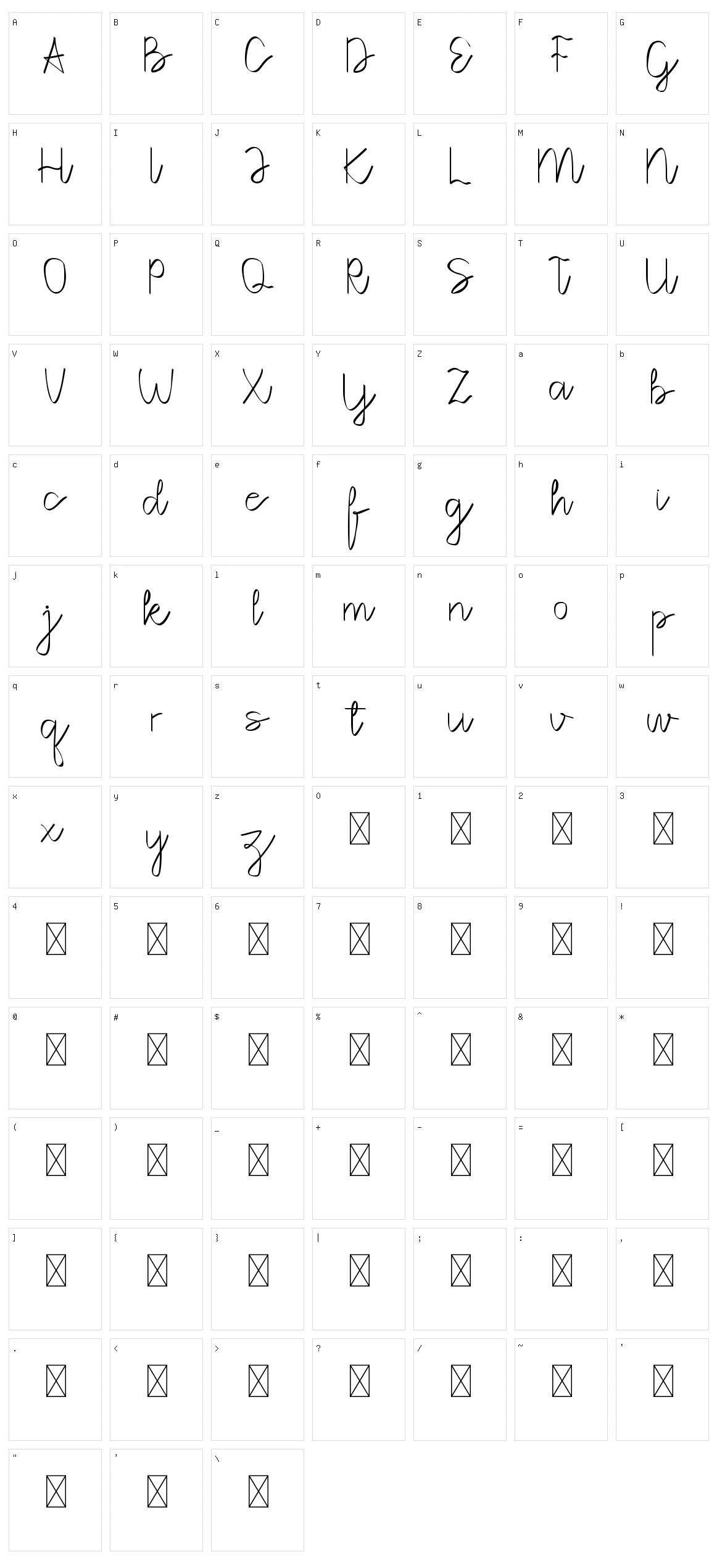
The free font Mind Notes is carefully designed by Edric Studio, showcasing a thoughtful balance of creativity and usability and falls under the Script font style. When you download the ZIP file, it contains only 12.04 KB of font files, making it lightweight and quick to download. Please review the license details below to understand permitted usage and distribution rights. If license information is not available, we recommend using this font for personal projects only or contacting the author directly for commercial usage permissions.